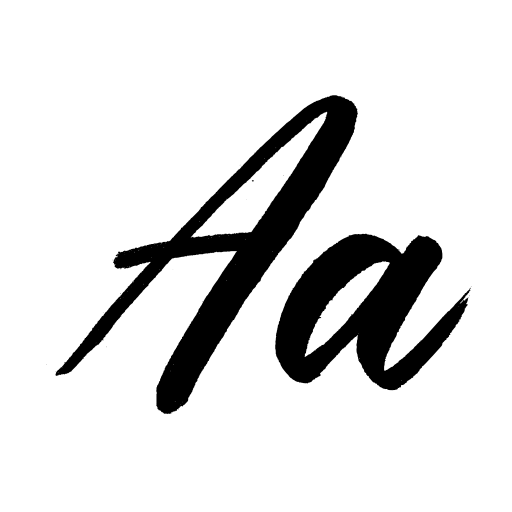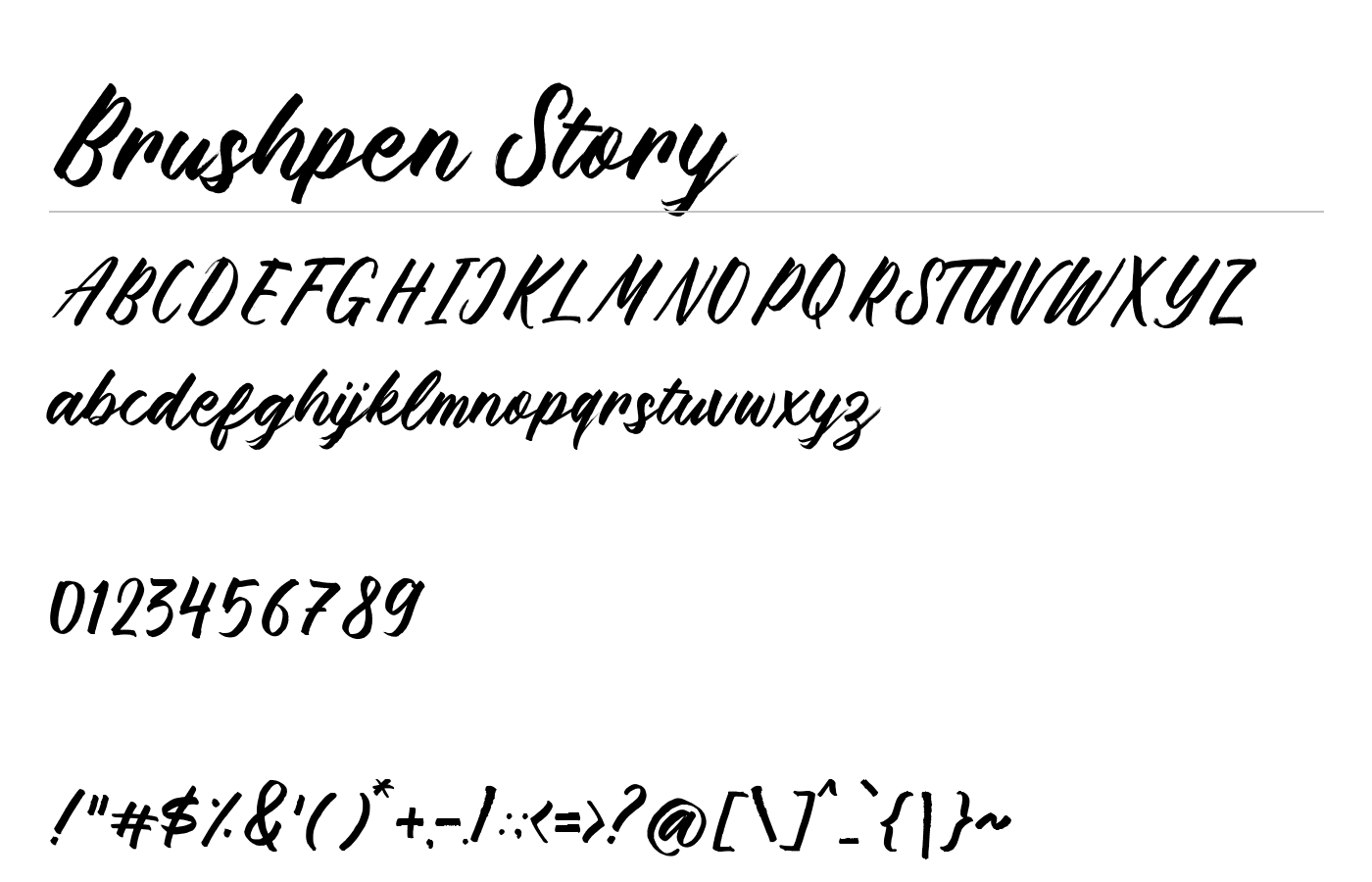
Brushpen Story is a lively, handwritten script font that mimics natural brush strokes with its fluid, slightly textured lines. It has a casual yet stylish feel, perfect for adding warmth and personality to creative projects like branding, social media graphics, and invitations. Its energetic character and clear legibility make it well-suited for expressive headlines and artistic designs.
Brushpen Story Font
About Brushpen Story Font
| Font family | Brushpen Story Font |